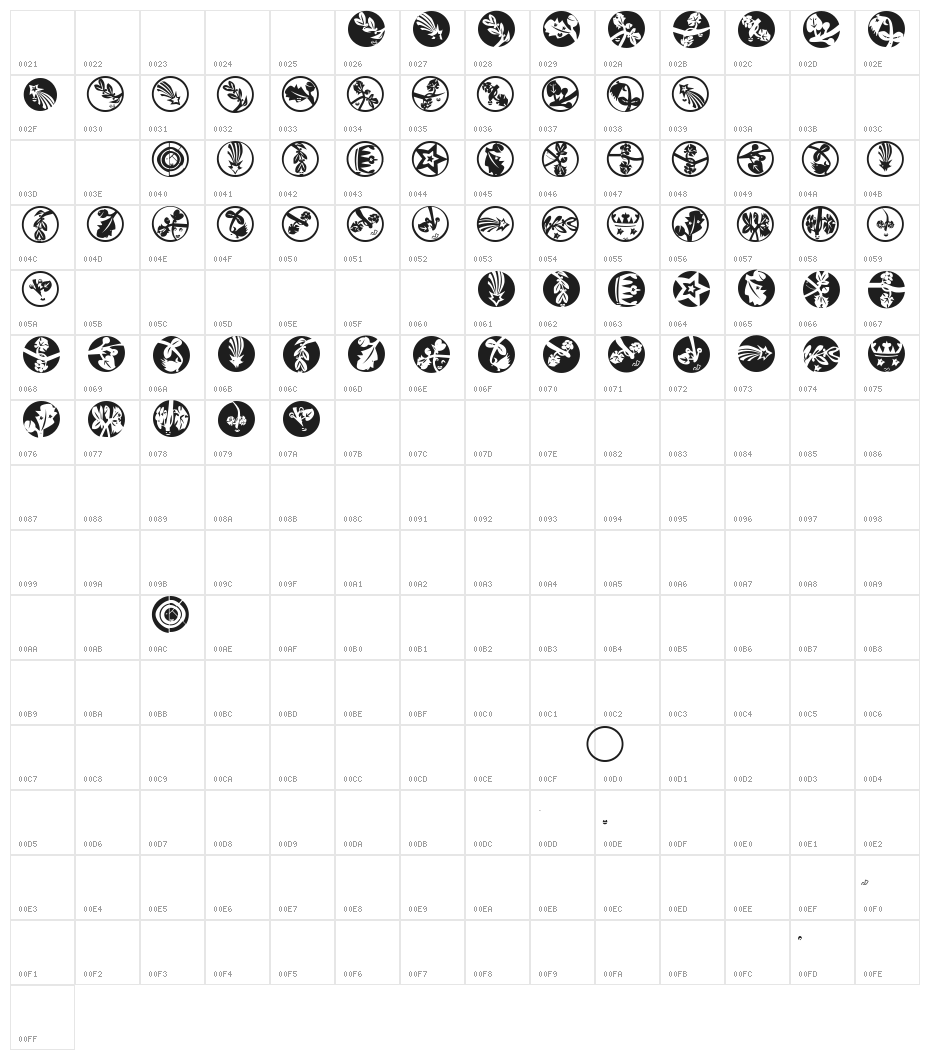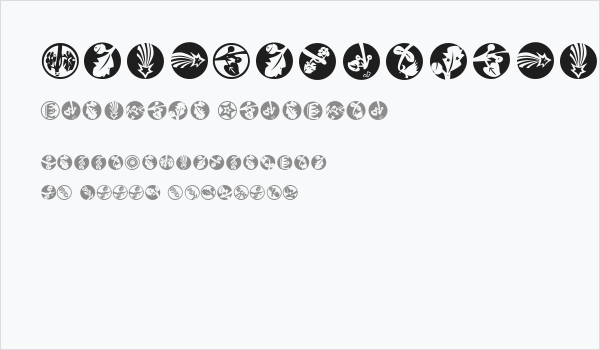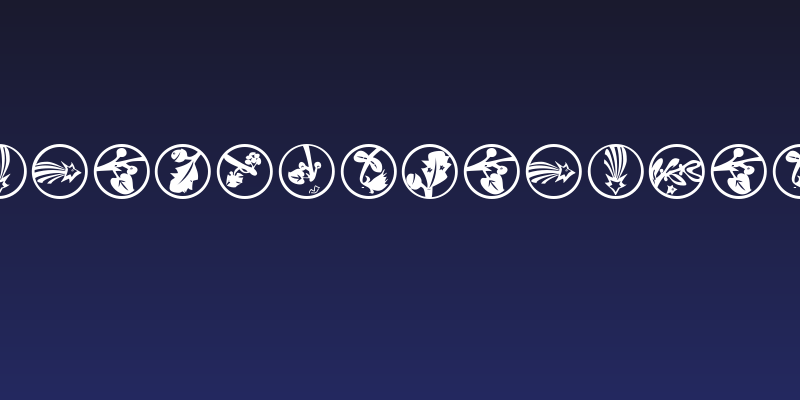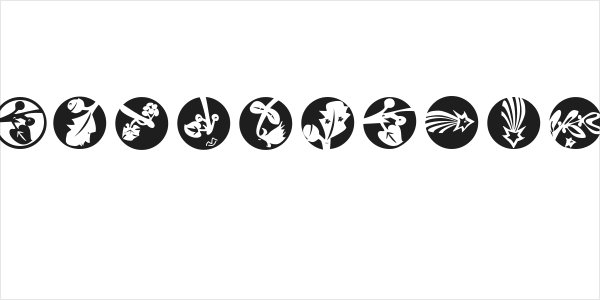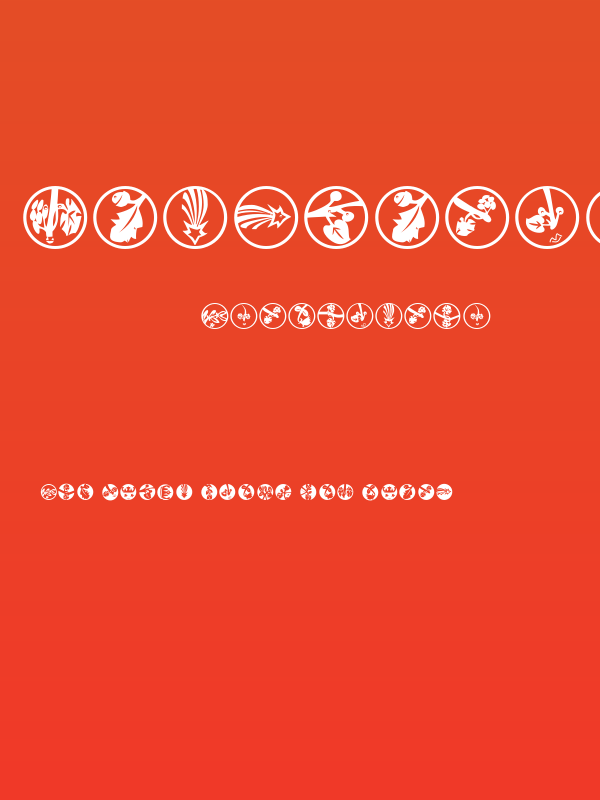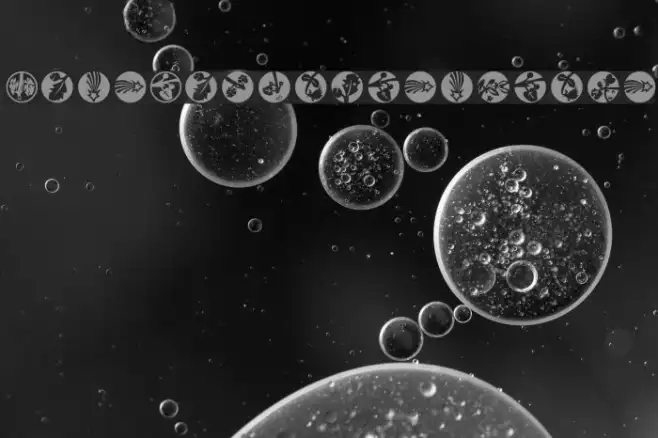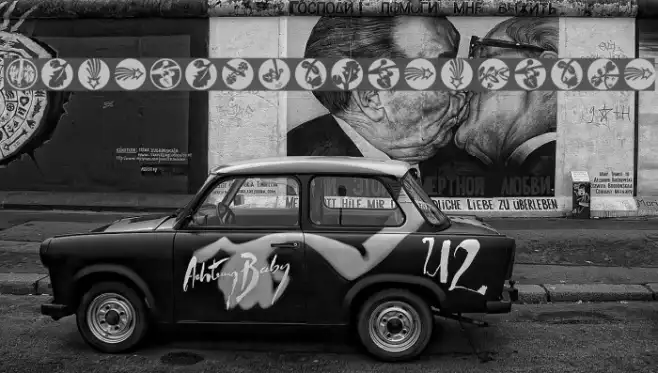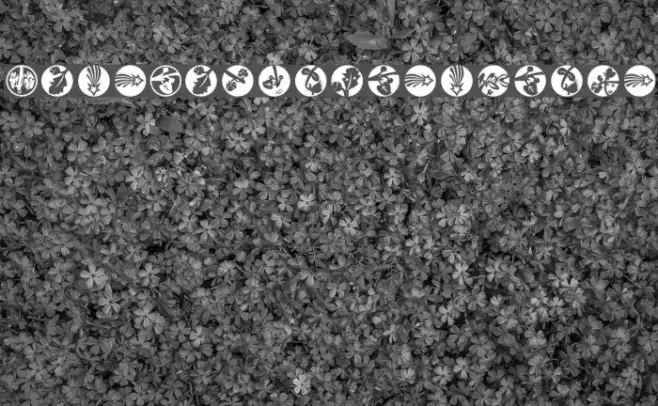
XmasImprovisations Font
XmasImprovisations Description
This design features a series of circular icons, each containing a unique Christmas-themed illustration. The icons are filled with various festive elements such as stars, holly, bells, and other holiday motifs. Each symbol is intricately designed, providing a playful and decorative appearance. The use of high contrast between the black background and white illustrations enhances the visibility and impact of each icon. The overall style is whimsical and festive, making it suitable for holiday-themed projects.
| Use Case | Logos, Decorative elements |
| Proposed Projects | Ideal for holiday greeting cards, festive wrapping paper designs, Christmas-themed websites, and seasonal marketing materials. |